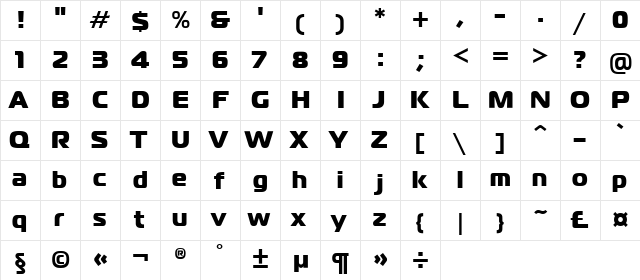
Ultra Vertex19 Roman
Design Context for Ultra Vertex19 Typeface
Ultra Vertex19 is a composed and adaptable typeface that performs quietly and consistently across a wide range of design contexts.
Pro Tip: Pair Ultra Vertex19 with a font of contrasting weight or personality to build a more expressive typographic hierarchy.